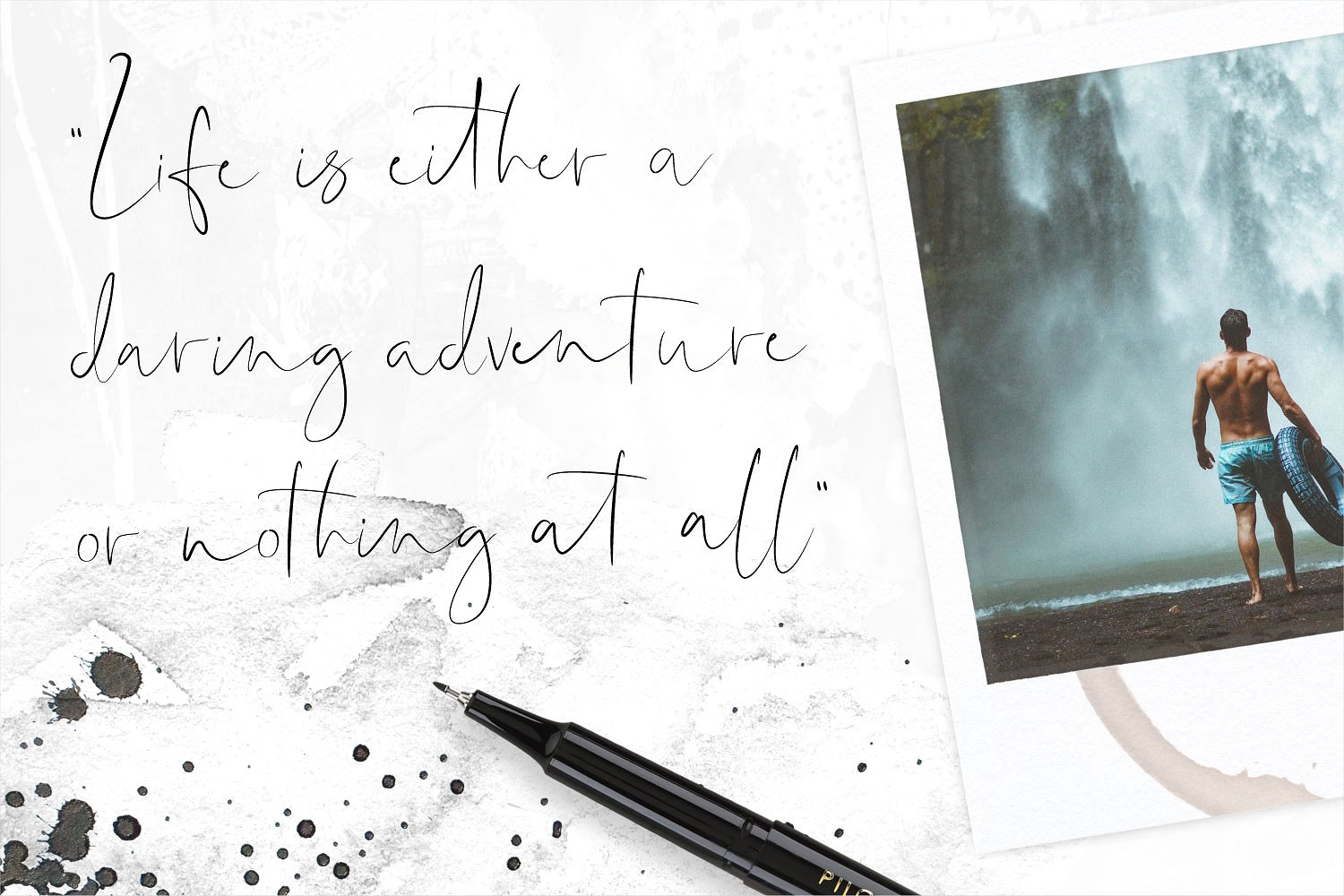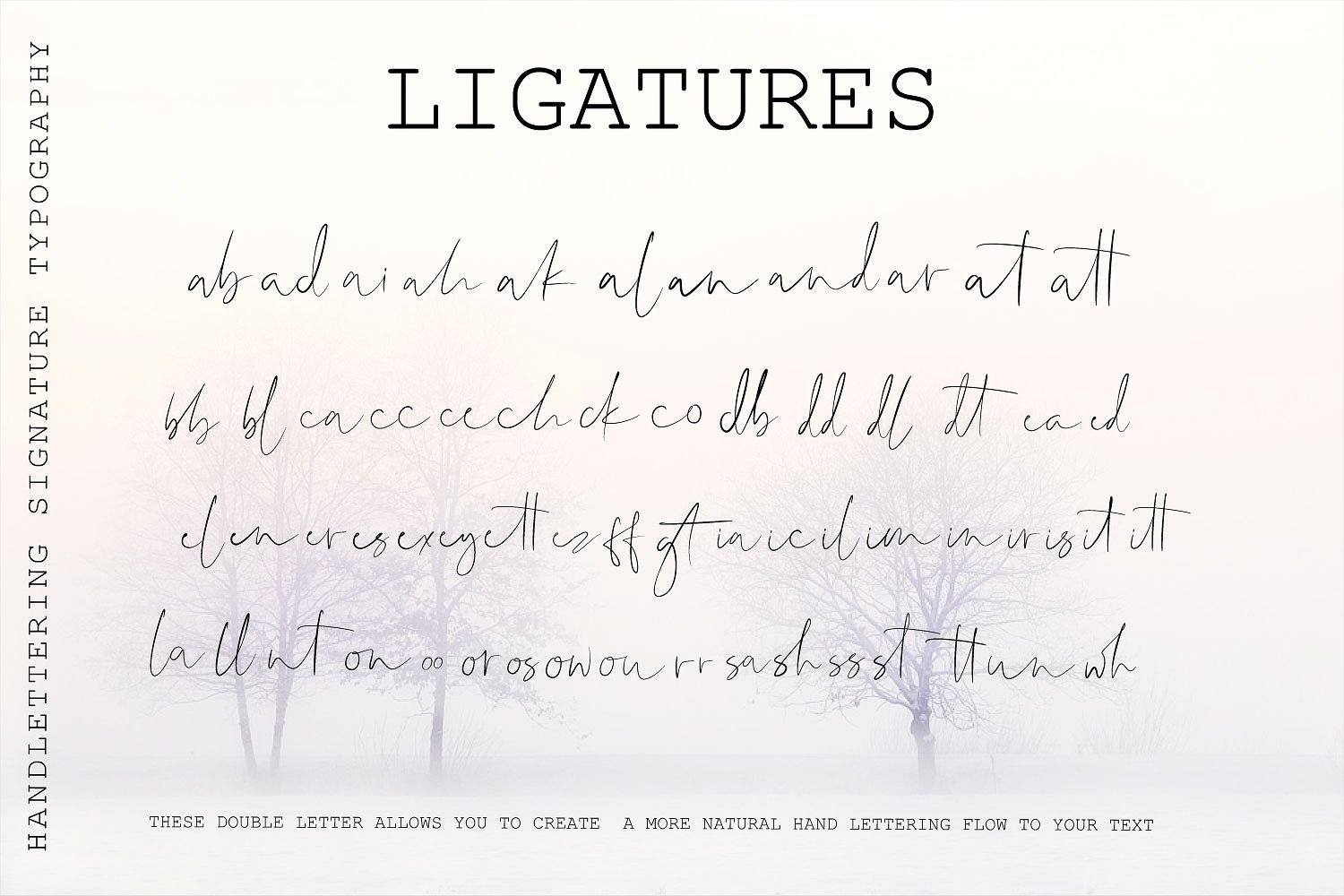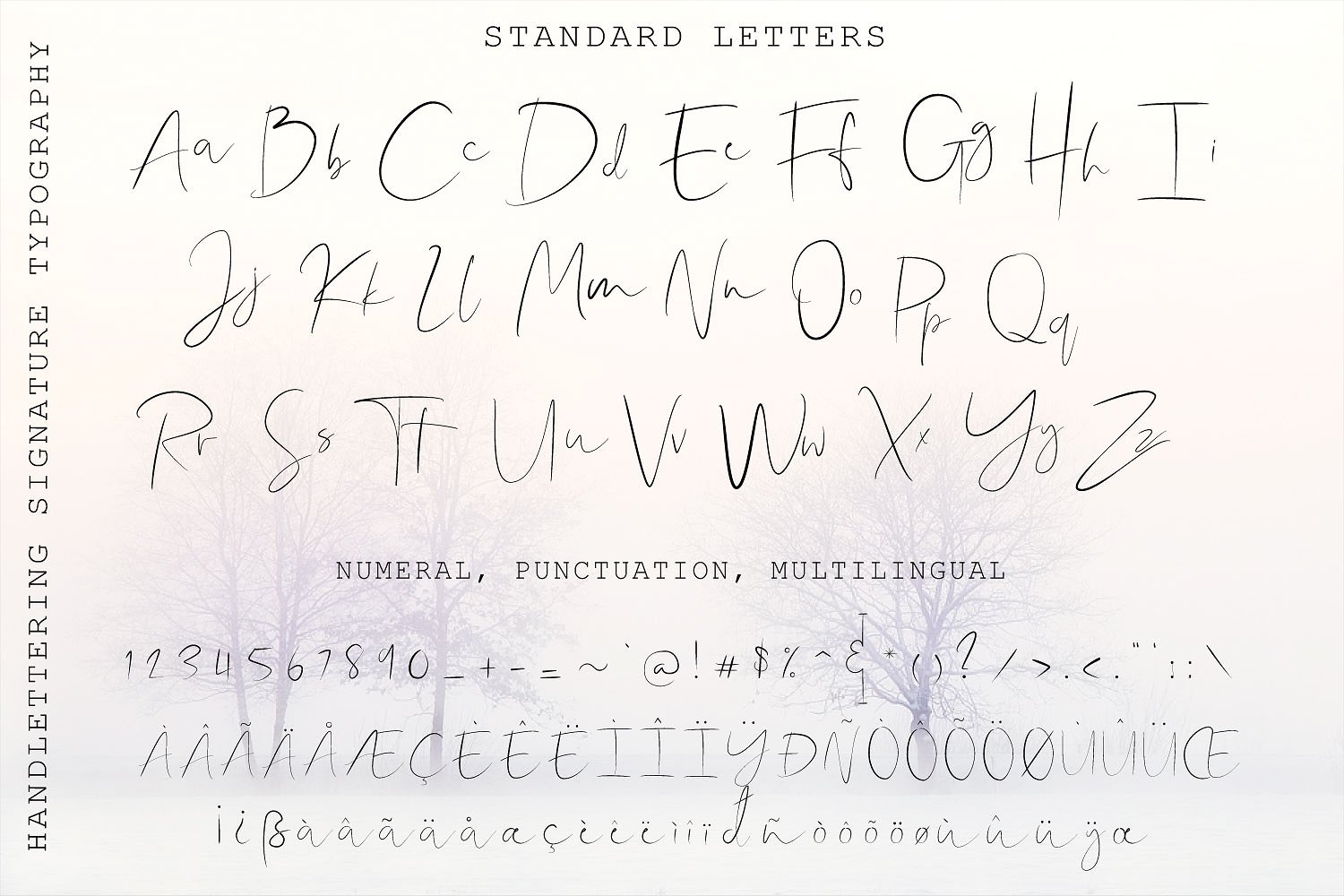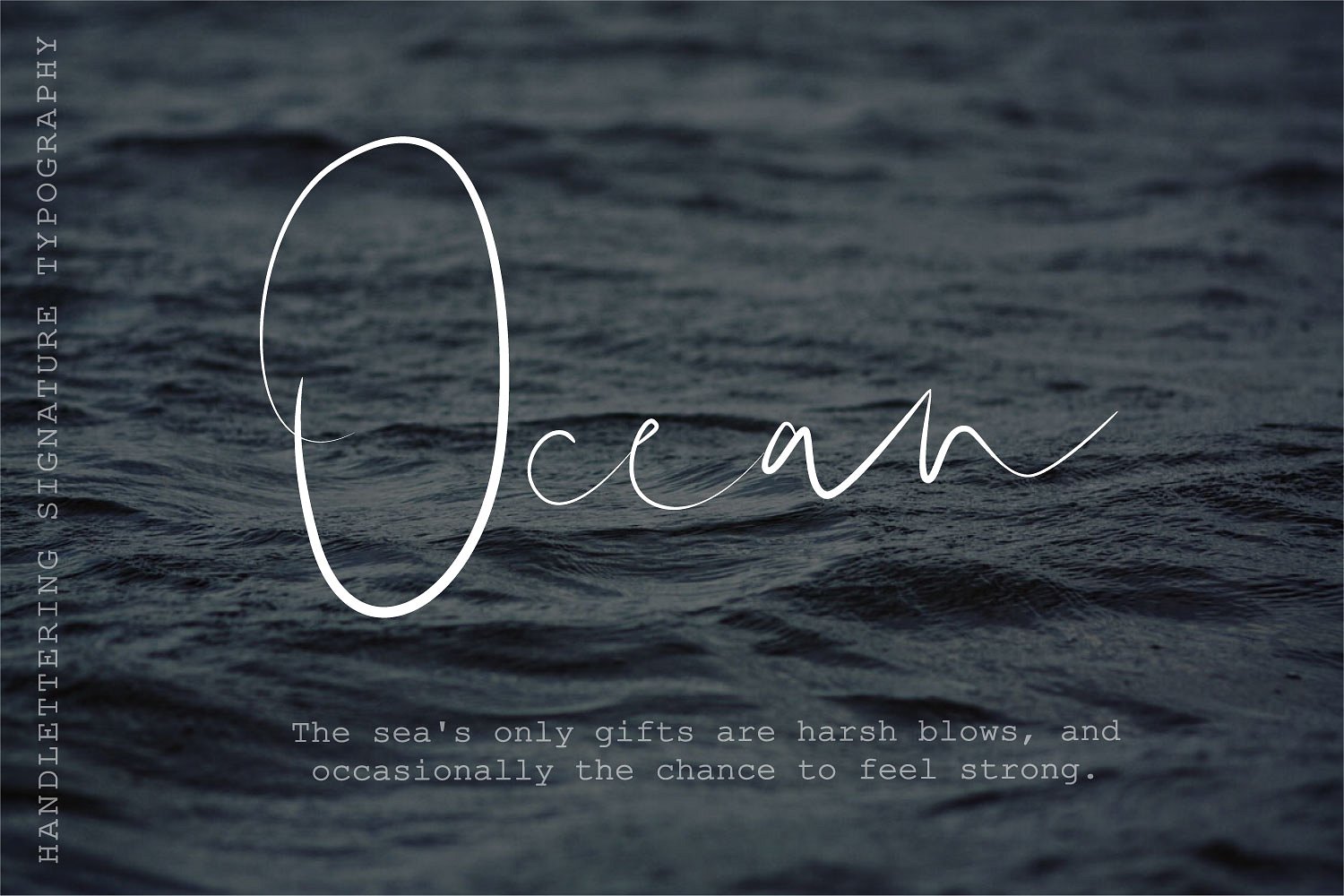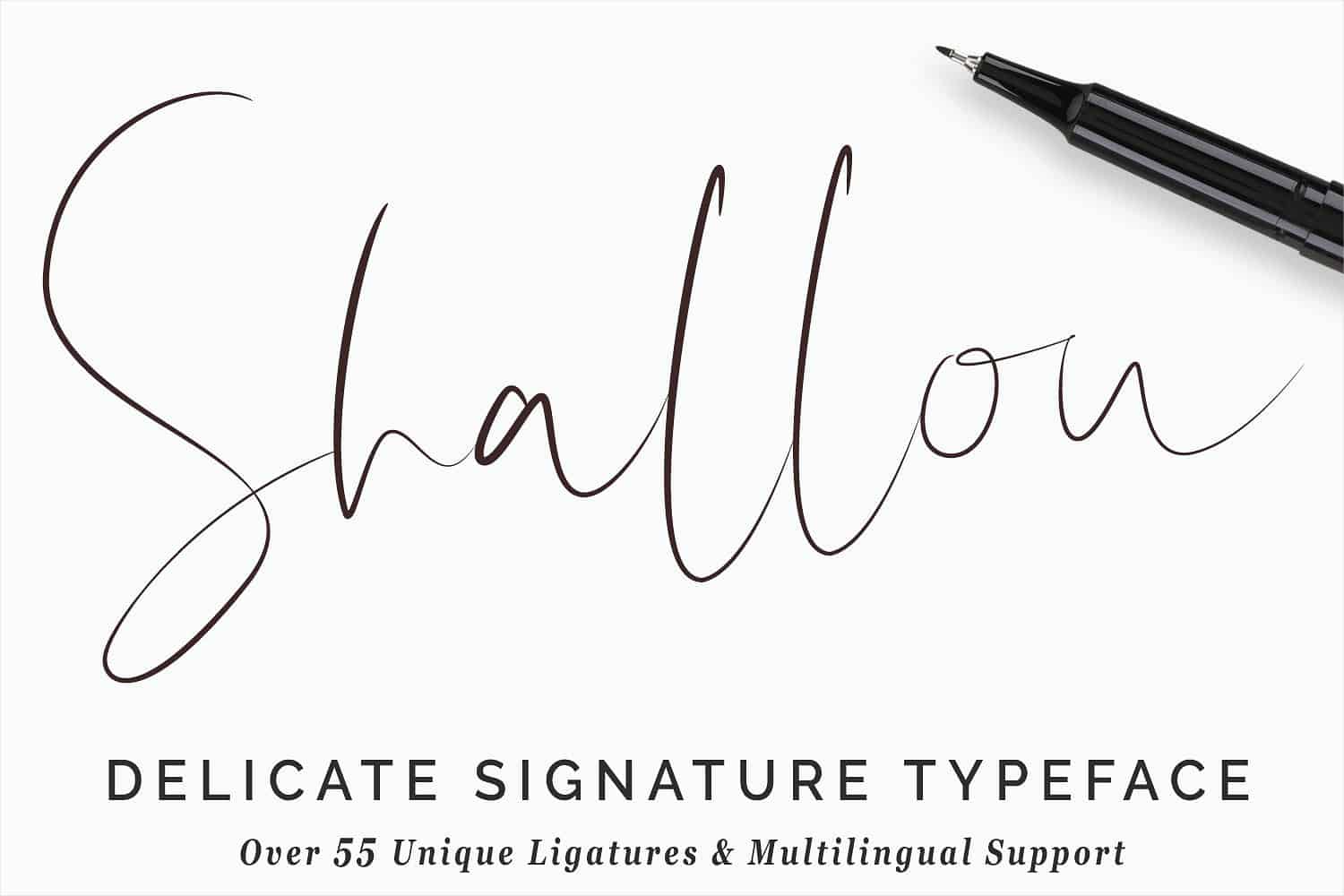
Shallou Signature Font
The following is a special signature type for you. Introducing Shallou, font created by everdrifter. Shallou is a handmade brushed typeface with a delicate, fun, and slightly informal look. Over 55 ligatures are included along with multilingual support, this font is perfect for branding, wedding invites, magazines, mugs, business cards, quotes, posters, and more, you can try first if you want to buy this font.